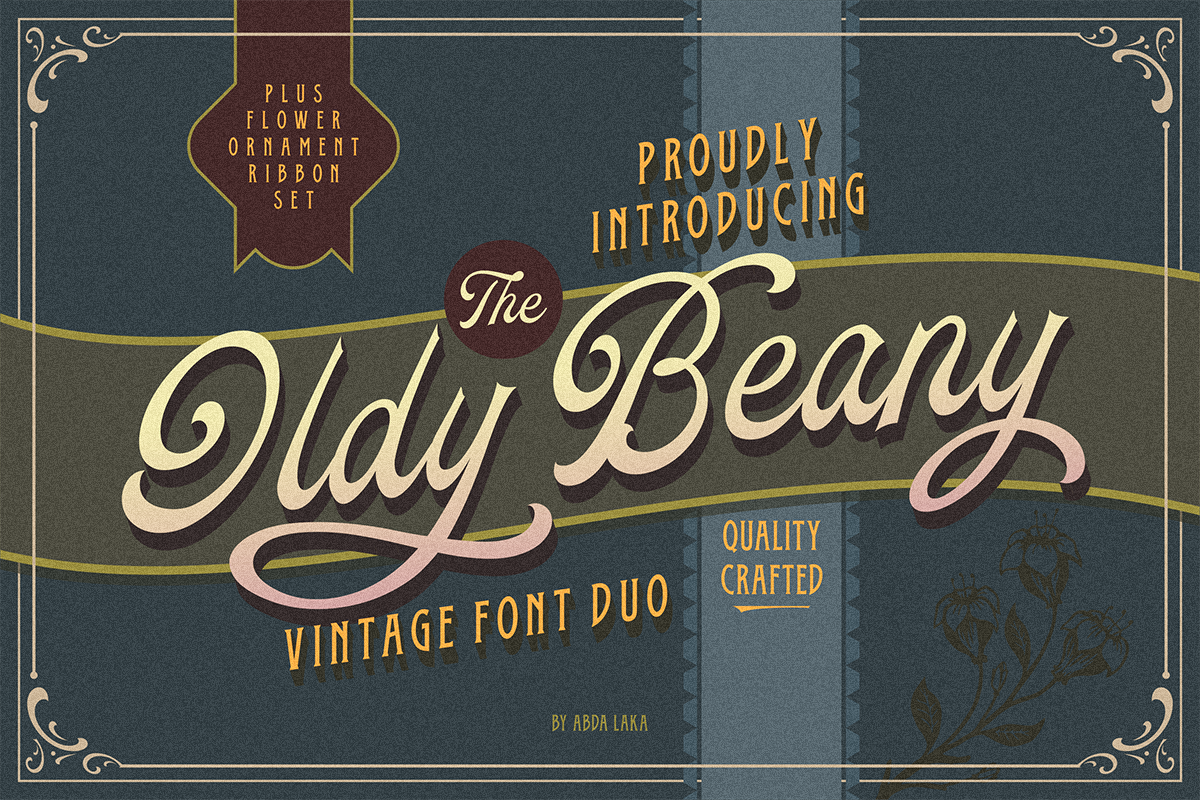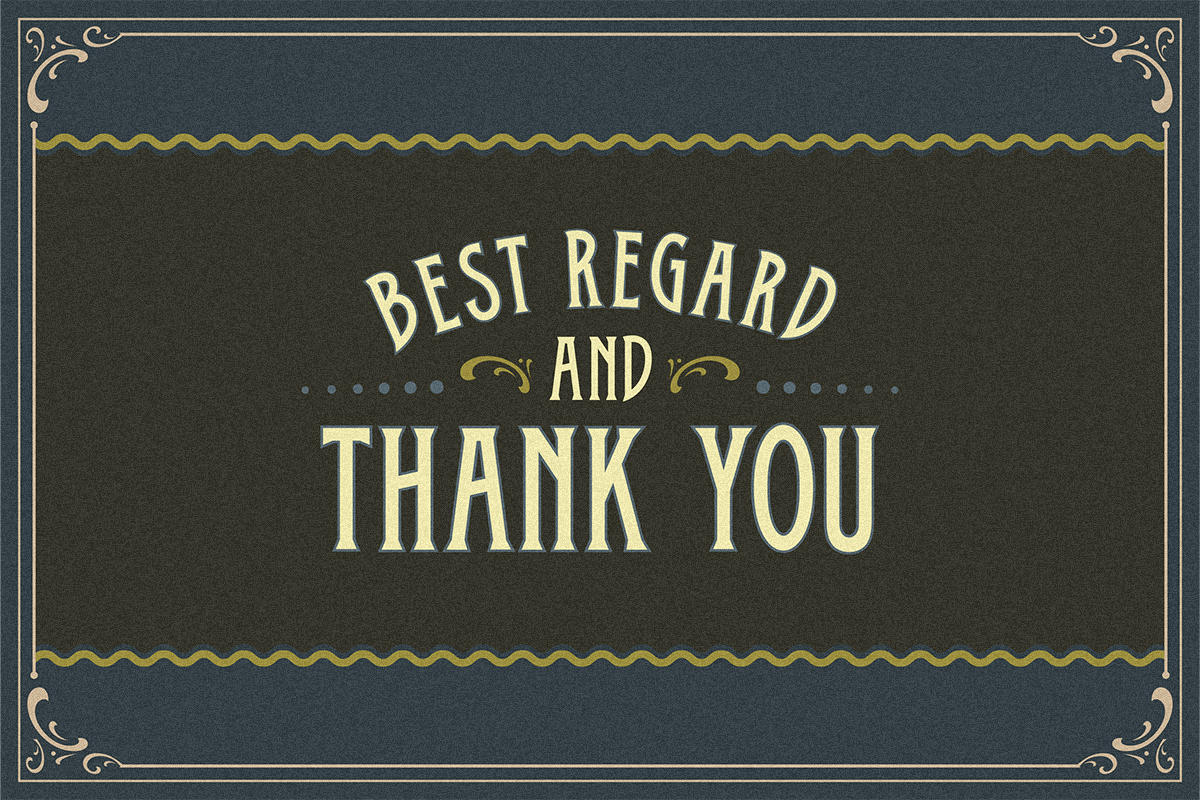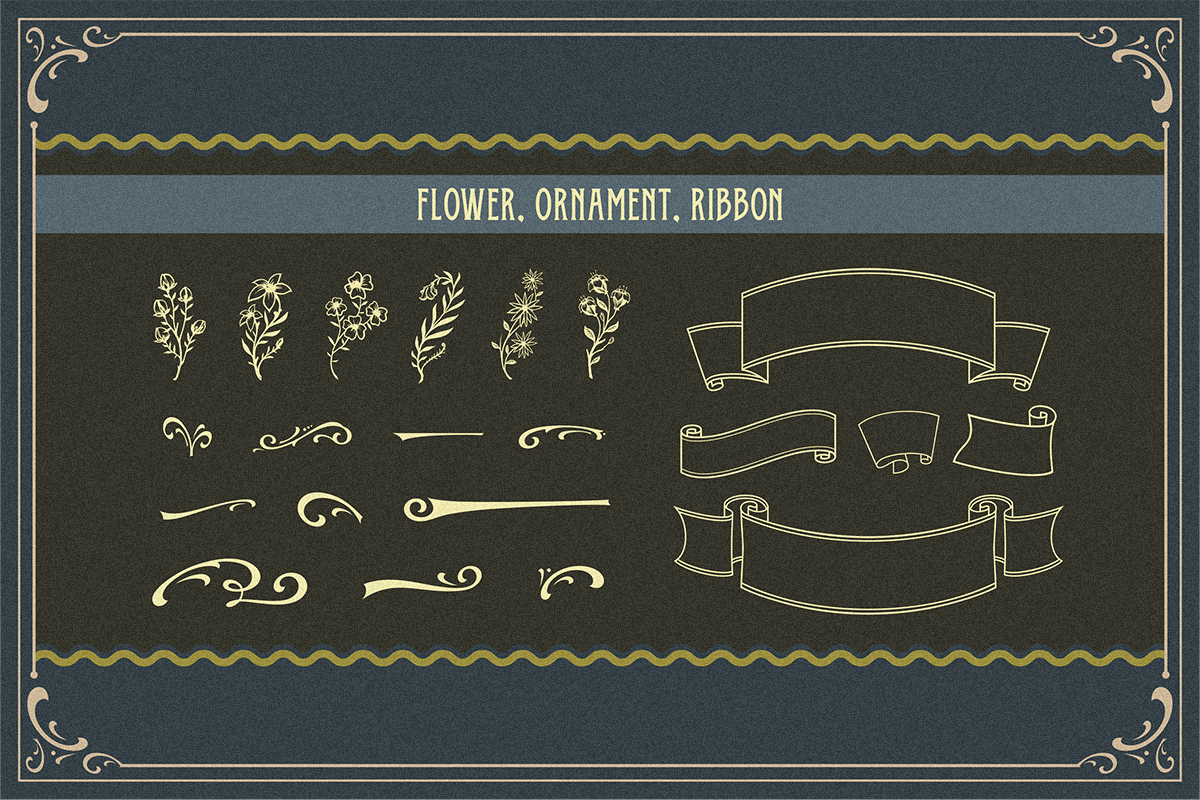
Oldy Beany Font Duo + Extras
Introducing the Oldy Beany font that inspired by vintage tradition and aesthetic old things. This font is suitable for logo, labels, packaging, poster, t-shirt and many more application. Come with stylistic alternates character, ornament, floral illustration and ribbon set that can be matched with your letters and embellish your design.